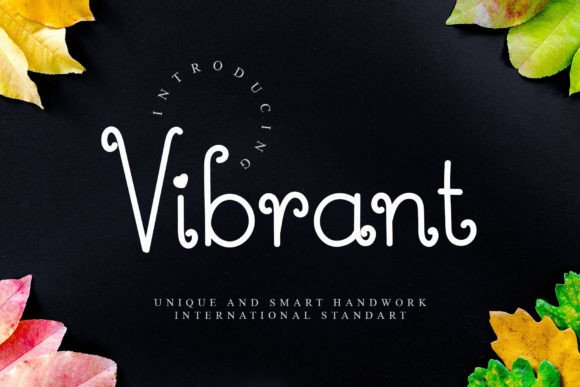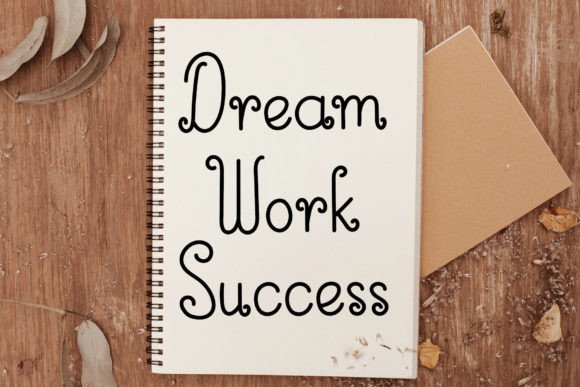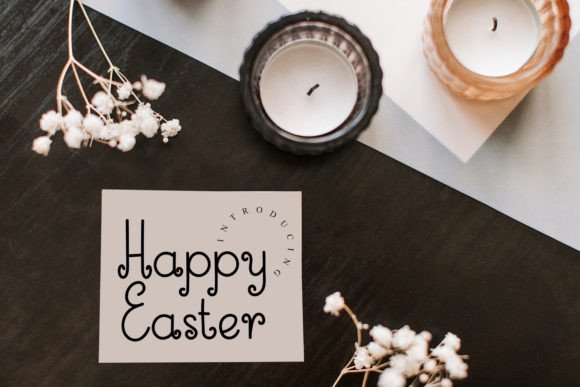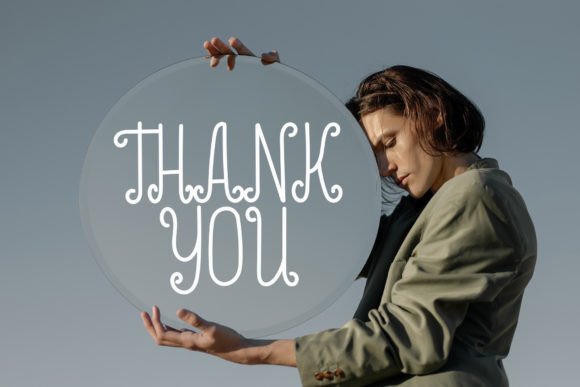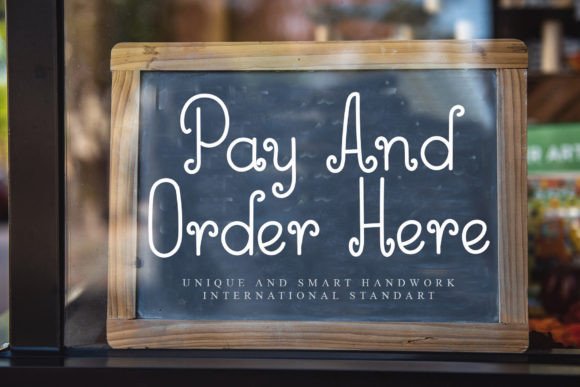
Add Elegance and Energy with Vibrant Handwritten Font
The Vibrant Handwritten Font is a graceful and stylish script typeface designed to bring sophistication and warmth to your creative projects. Its smooth, flowing strokes mimic natural handwriting, offering a refined and personal touch that elevates any design.
Whether you’re designing for a professional brand or a heartfelt occasion, Vibrant adds energy and elegance with ease.
Perfect for Weddings, Branding, Cards, and More
Thanks to its versatile and polished look, Vibrant is an excellent choice for a wide variety of projects. It works beautifully on wedding invitations, event stationery, and greeting cards, giving each design a heartfelt and handmade feel.
For business use, Vibrant brings a signature charm to logos, brand identities, billboards, and business cards. It’s especially effective for brands in the fashion, beauty, lifestyle, and artisanal product spaces, where a touch of elegance can make all the difference.
A Unique Script with a Natural Feel
What makes the Vibrant Font truly stand out is its blend of personality and precision. While it looks like natural handwriting, it’s carefully designed to be consistent, balanced, and easy to read. Each stroke and curve is intentional, giving your text a polished yet approachable style.
Whether you’re working with short phrases, branding headlines, or social captions, Vibrant maintains clarity while adding a sense of charm and movement.
Excellent for Print and Digital Use
The beauty of Vibrant extends across both print and digital formats. In print, it’s ideal for labels, flyers, product packaging, stationery, and magazines. Digitally, it shines in Instagram posts, Pinterest graphics, email headers, and website banners.
To enhance your layout, consider pairing Vibrant with a clean, minimalist typeface. This combination creates contrast while allowing Vibrant to be the visual centerpiece of your design.
Why Choose Vibrant Handwritten Font?
Here are a few reasons why Vibrant is a go-to font for creatives:
Elegant handwritten style with unique flair
Smooth, natural strokes for a personal feel
Perfect for both formal and casual designs
Make Your Message Stand Out with Vibrant
In summary, the Vibrant Handwritten Font offers the perfect balance of elegance and expressiveness. From romantic stationery to stylish brand assets, this font adds character and sophistication to any project.
If you’re seeking a handwritten font that feels genuine yet refined, Vibrant is the perfect choice to elevate your designs with a personal touch.